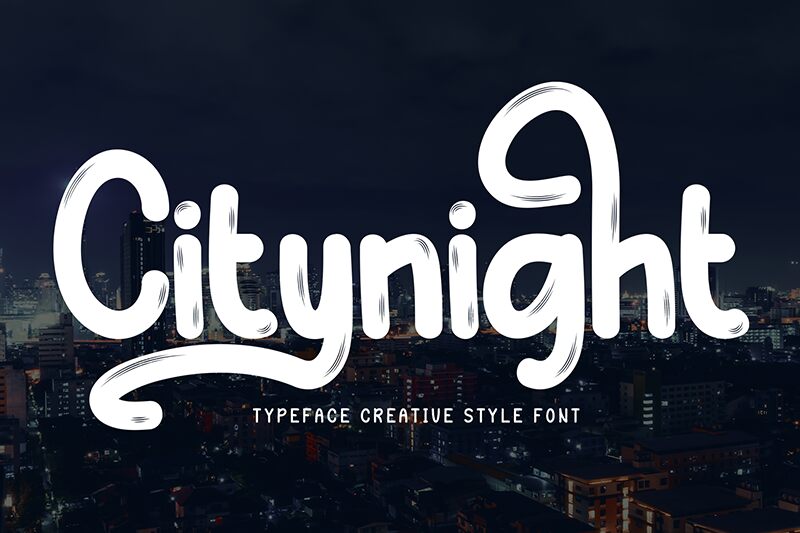
Citynight font designed by Scratchones will add a unique touch to captivating your audience and creating the unimaginable. This free script font reflects minimalistic aspects that form basics and can create interesting visual contrasts that are appealing. All the included characters are lively and make a perfect choice for your next project.